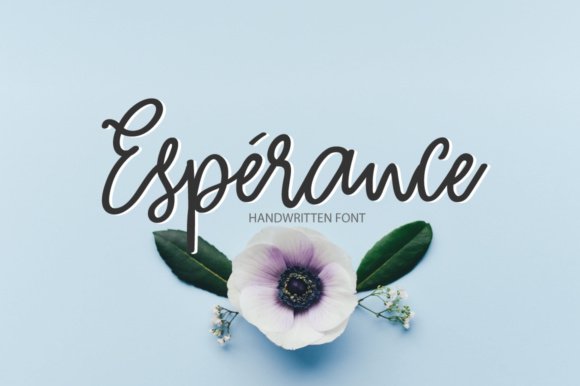
Where Creativity Meets Elegance: The Esperance Font
There’s something magical about stumbling upon a font that perfectly captures the essence of your creative vision. You know, that moment when you see your project come together, and every detail feels just right? For designers and creatives, this feeling is a dream come true. And that’s exactly what Esperance Font is all about – bringing your unique style to life with its elegant, handwritten script.
Whether you’re designing a wedding invitation, a blog post, or even a logo, Esperance Font is the perfect tool to add a touch of sophistication and charm. Its versatility makes it a valuable asset for designers, allowing them to express their creativity and convey their message with style and flair. With Esperance Font, the possibilities are endless, and the results are nothing short of breathtaking.
Esperance Font Key Features
- Font Family: Esperance Font
- Unique Characteristic: Unique Esperance Font has a modern and elegant design with a high level of legibility, making it suitable for various applications such as logos, branding, and body text.
Designer Review: Esperance Font
Overall, I’m quite impressed with the Esperance Font, a beautiful and elegant script font designed by the talented Hoftype. Here’s what I like and dislike about it.
- Unique and elegant design: Esperance Font has a classic feel with a modern twist, making it perfect for various design projects, from invitations to branding.
- High-quality rendering: The font is well-rendered, with crisp lines and subtle flourishes that give it a sophisticated look.
- Good legibility: Despite its script nature, Esperance Font is easy to read, even at smaller font sizes.
- Beautiful ligatures: The font includes a range of beautiful ligatures that add to its overall charm.
- May not be suitable for small text: Due to its script nature, Esperance Font might not be the best choice for small text or body copy.
- Limited language support: Esperance Font is designed primarily for Latin-based languages, which might limit its use for non-Latin scripts.
Overall, I think Esperance Font is a great choice for designers looking for a unique and elegant script font. While it may have some limitations, its beauty and high-quality rendering make it a valuable addition to any design arsenal.
The Esperance Font is ideal for:
- Typography-based art and graphics
Alternatives to Esperance Font
Playfair Display is an elegant, luxurious serif font ideal for high-end branding, magazine titles, and packaging. It’s perfect for creating a sense of sophistication and refinement.
Comparison to Esperance Font: While both fonts have a classic feel, Playfair Display is more ornate and luxurious, making it suitable for high-end designs. Esperance Font, on the other hand, has a more subtle and understated elegance.
Great Vibes is a beautiful, modern script font perfect for creating a friendly and approachable atmosphere. It’s ideal for logos, branding, and packaging for creative businesses and startups.
Comparison to Esperance Font: Great Vibes has a more casual and relaxed feel compared to Esperance Font, which is more elegant and sophisticated. While Esperance Font is suitable for high-end designs, Great Vibes is better suited for more laid-back and creative projects.
Carolyna Pro is a modern, elegant serif font ideal for branding, packaging, and editorial design. It’s perfect for creating a sense of sophistication and refinement without being too ornate.
Comparison to Esperance Font: Carolyna Pro has a similar elegant feel to Esperance Font, but with a more modern twist. While Esperance Font has a more classic and timeless look, Carolyna Pro has a more contemporary feel.
Alex Brush is a beautiful, elegant script font perfect for creating a sense of sophistication and refinement. It’s ideal for logos, branding, and packaging for high-end businesses and luxury brands.